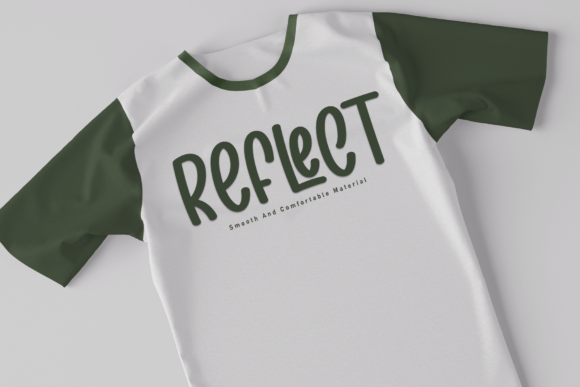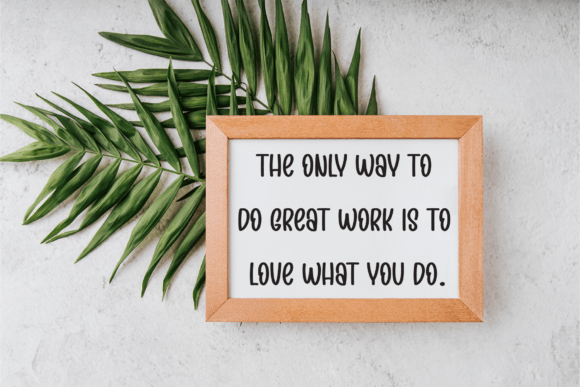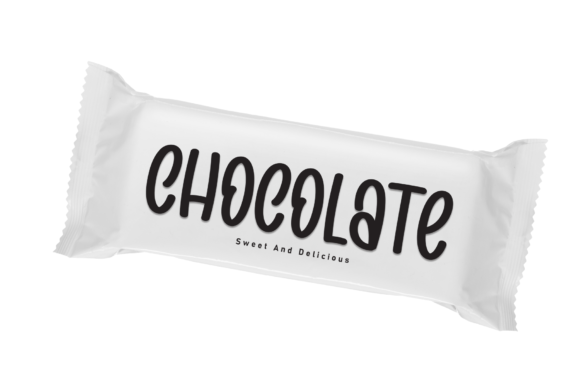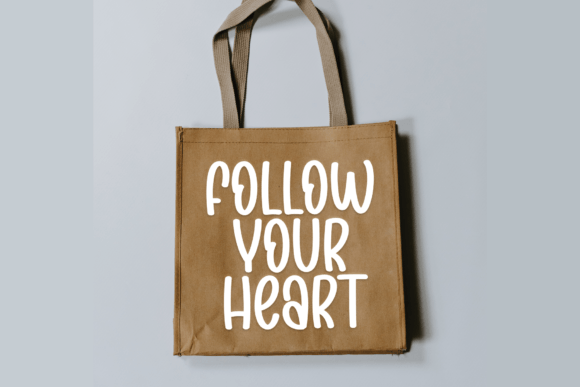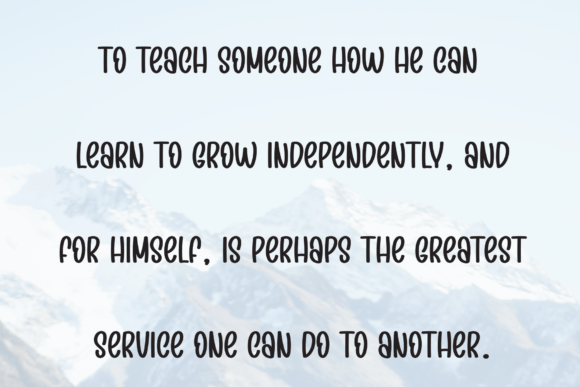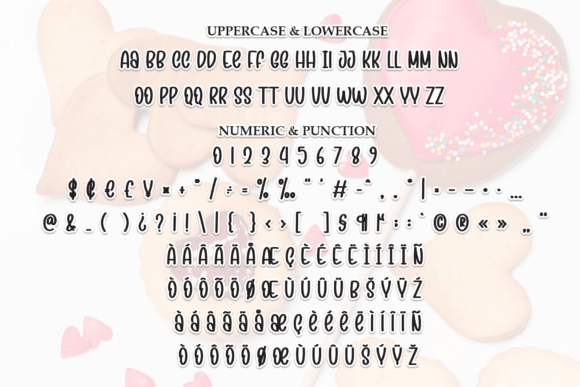
Cookies Valentine Font: The Perfect Addition to Your Design Projects
Are you looking for a font that can add a touch of personality and whimsy to your design projects? Look no further than the Cookies Valentine Font. This fun, handwritten font is masterfully crafted to become a true favorite among designers and crafters alike. With its contemporary and fresh feel, it’s perfect for any design you wish to create.
What Makes Cookies Valentine Font So Special?
Cookies Valentine Font is a unique and charming font that is sure to make your designs stand out. Its handwritten style gives it a personal and approachable feel, making it perfect for a wide range of projects, from romantic getaways to fun and playful designs. The font is carefully crafted with attention to detail, ensuring that it is both beautiful and legible.
Features of Cookies Valentine Font
- Handwritten style: Cookies Valentine Font has a beautiful, handwritten style that adds a touch of personality to your designs.
- Contemporary and fresh: The font has a modern and fresh feel, making it perfect for contemporary designs.
- Legible: Despite its handwritten style, Cookies Valentine Font is highly legible, making it perfect for use in a wide range of projects.
- Versatile: The font is versatile and can be used in a variety of projects, from romantic designs to fun and playful ones.
Why Designers and Crafters Love Cookies Valentine Font
Cookies Valentine Font has quickly become a favorite among designers and crafters due to its unique and charming style. Here are a few reasons why:
- High-quality: Cookies Valentine Font is a high-quality font that is designed to produce beautiful results.
- Unique style: The font has a unique style that sets it apart from other fonts, making it perfect for designers and crafters who want to add a touch of personality to their designs.
How to Use Cookies Valentine Font in Your Designs
Cookies Valentine Font is easy to use in your designs, and here are a few ways you can incorporate it:
- Valentine’s Day designs: The font is perfect for Valentine’s Day designs, such as romantic cards, posters, and social media graphics.
- Wedding designs: Cookies Valentine Font is also perfect for wedding designs, such as wedding invitations, programs, and decorations.
- Fun and playful designs: The font is great for fun and playful designs, such as children’s party invitations, birthday cards, and social media graphics.
Tips for Getting the Most Out of Cookies Valentine Font
Here are a few tips for getting the most out of Cookies Valentine Font:
- Experiment with different colors: The font looks great in a variety of colors, so don’t be afraid to experiment and find the perfect color for your design.
- Pair it with other fonts: Cookies Valentine Font pairs well with other fonts, so try pairing it with a bold font for a fun and playful look.
- Use it in different sizes: The font looks great in different sizes, so try using it in a large size for a bold statement or in a small size for a more subtle look.
Cookies Valentine Font is a fun and charming font that is perfect for designers and crafters who want to add a touch of personality to their designs. With its handwritten style, contemporary feel, and versatility, it’s perfect for a wide range of projects. Whether you’re creating Valentine’s Day designs, wedding designs, or fun and playful designs, Cookies Valentine Font is sure to become a true favorite.